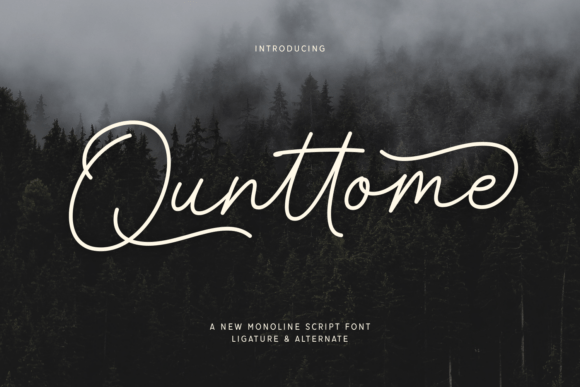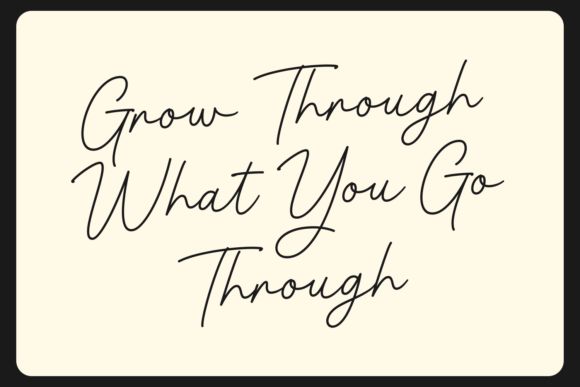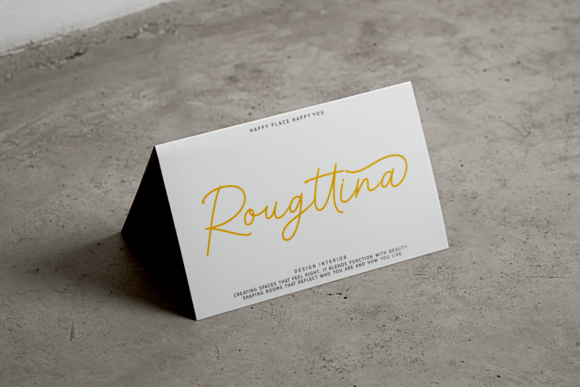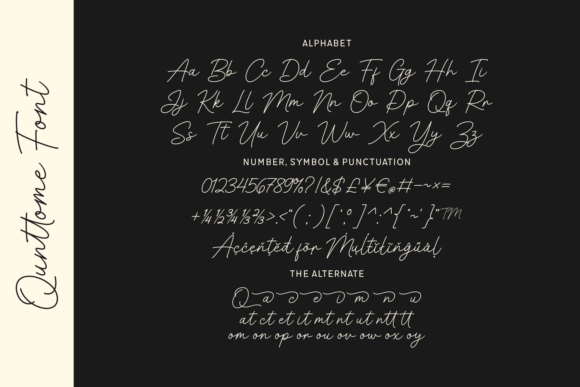
Qunttome Font: Elegant Script for Minimalist Logo Design & Branding
About the Qunttome Font
The Qunttome Font offers a perfect balance of form and function for your design needs. Qunttome is a sophisticated monoline script font with an elegant flow and artistic ligatures. Its smooth, continuous strokes and graceful alternates make it a perfect choice for branding, nature-inspired packaging, minimalist invitations, and logo designs. Qunttome blends organic charm with modern refinement to elevate your visuals with a natural, effortless style.
Qunttome’s elegant, yet understated personality makes it ideal for projects requiring a touch of sophistication without being overly fussy. It excels in headlines, short text blocks, and logos where its graceful ligatures can shine. Avoid using Qunttome for large amounts of body text or UI elements; its monoline weight might compromise readability in smaller sizes or extended passages.
Pairing Qunttome effectively depends on the desired balance. For a modern, clean aesthetic, consider pairing it with a geometric sans-serif like Futura or a minimalist serif such as Garamond. To emphasize its organic charm, a softer sans-serif like Lato or a playful script font could work well.
The overall effect should convey a sense of refined simplicity and understated luxury, suitable for brands focused on nature, beauty, wellness, or high-end products. Consider avoiding applications where a bolder, more assertive personality is needed.
Qunttome Font Usage Examples
Qunttome Font Example